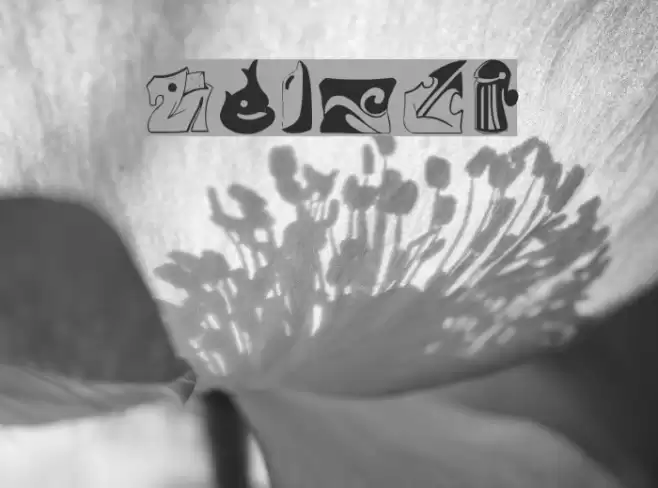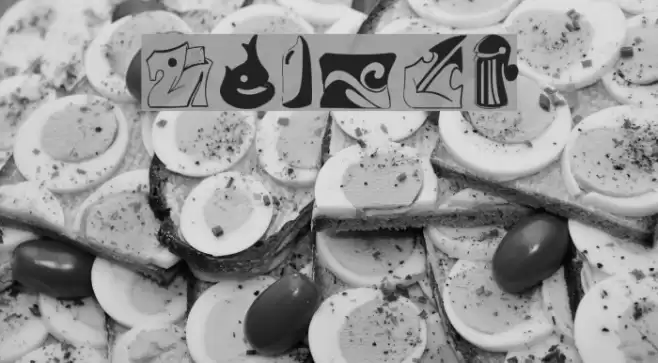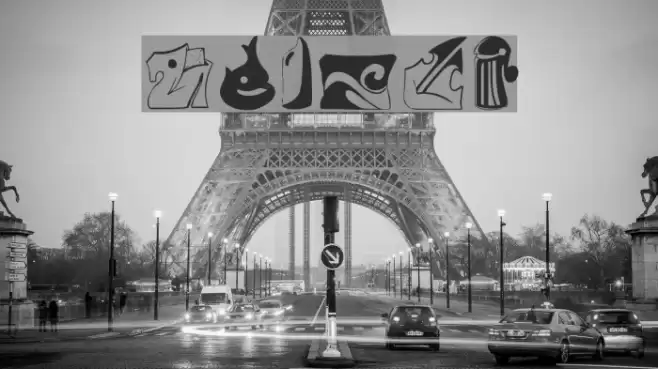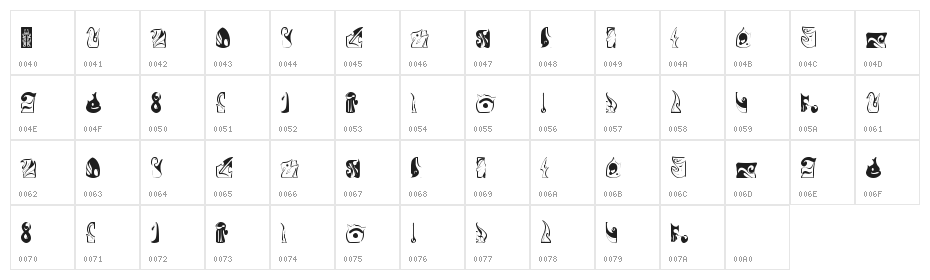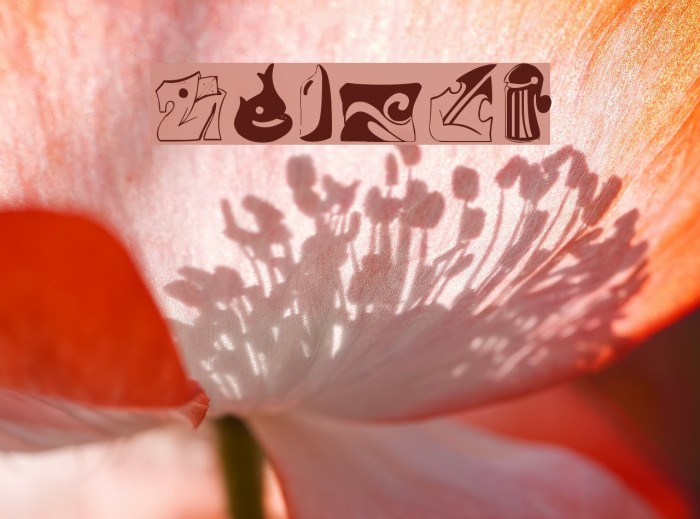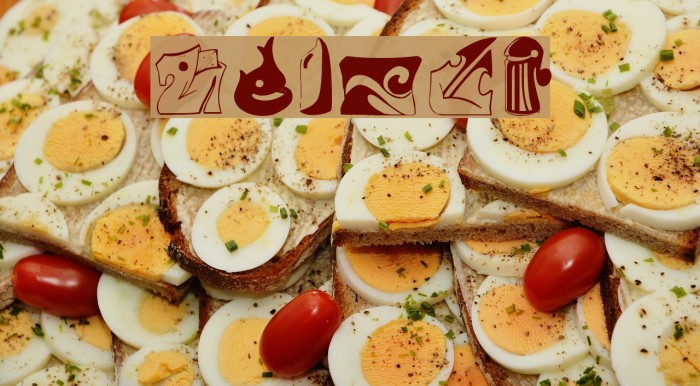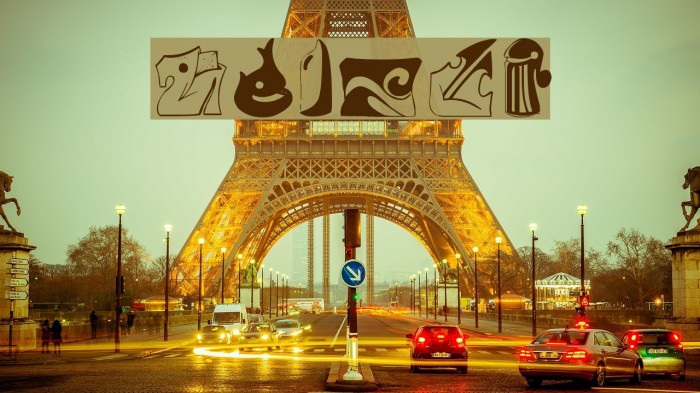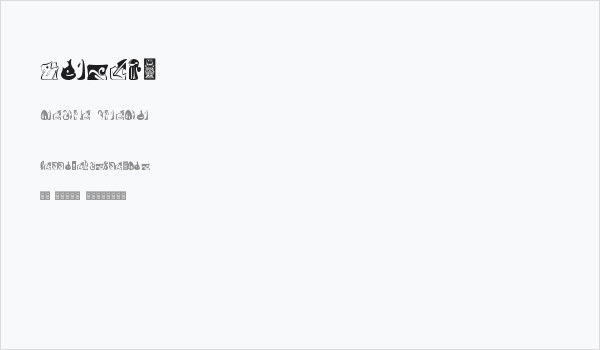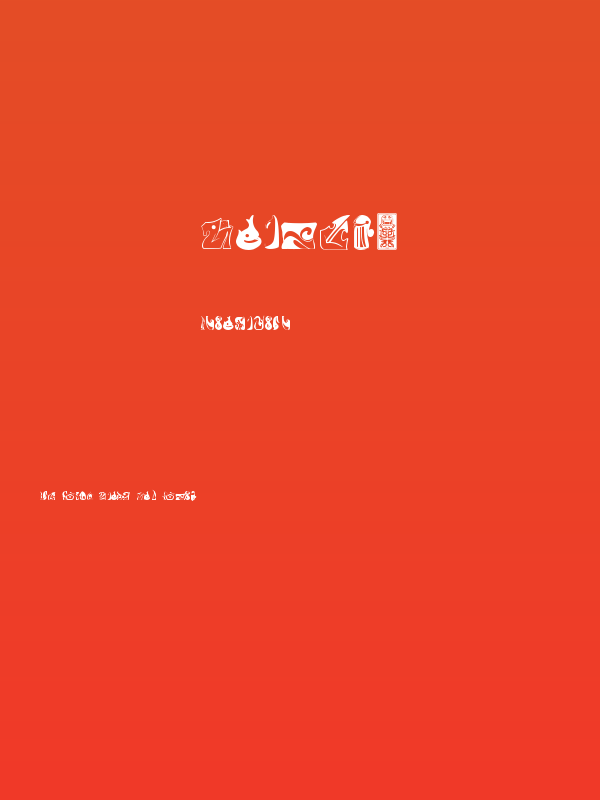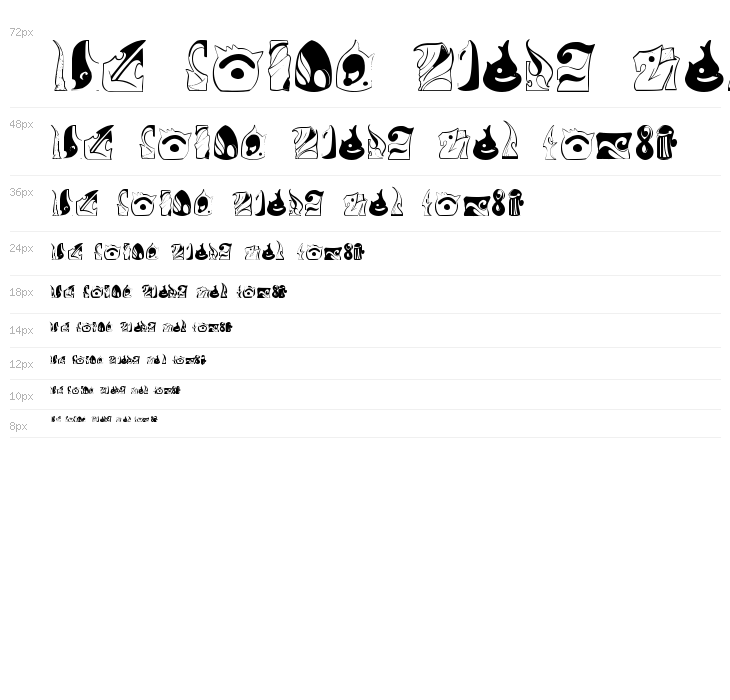
formes2 Font
formes2 Description
This font features a highly decorative and abstract style, characterized by intricate patterns and bold, artistic shapes. Each character is uniquely designed with a mix of solid and hollow forms, creating a striking visual impact. The letters and numbers are stylized with a blend of curves and sharp angles, resembling abstract art or tribal motifs. The special characters continue this theme, adding to the font's overall artistic and unconventional appearance. This font is not suited for body text due to its complexity but excels in creating eye-catching designs.
A decorative and abstract font with intricate patterns and bold shapes from Uncategorized fonts.
- Proposed Projects: Ideal for artistic projects, posters, album covers, and any design requiring a bold, unique aesthetic.
- Use Case: Logos, Posters, Artistic Designs